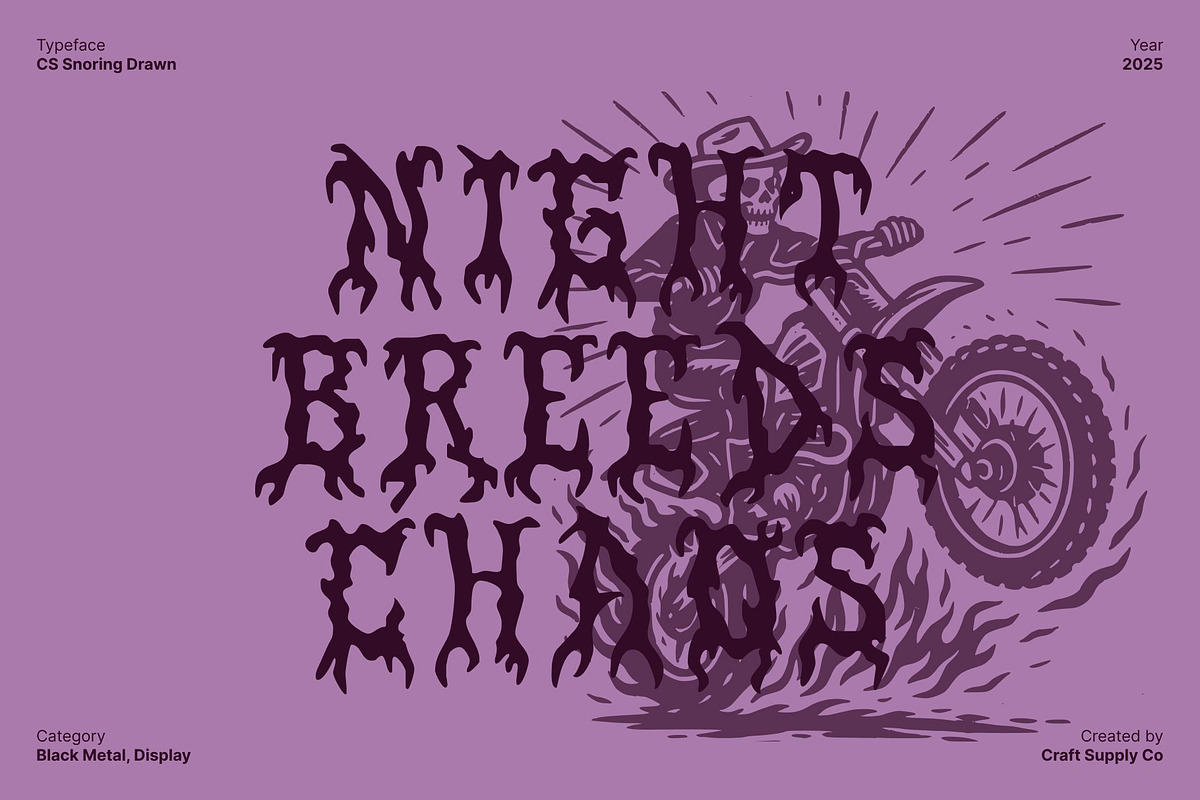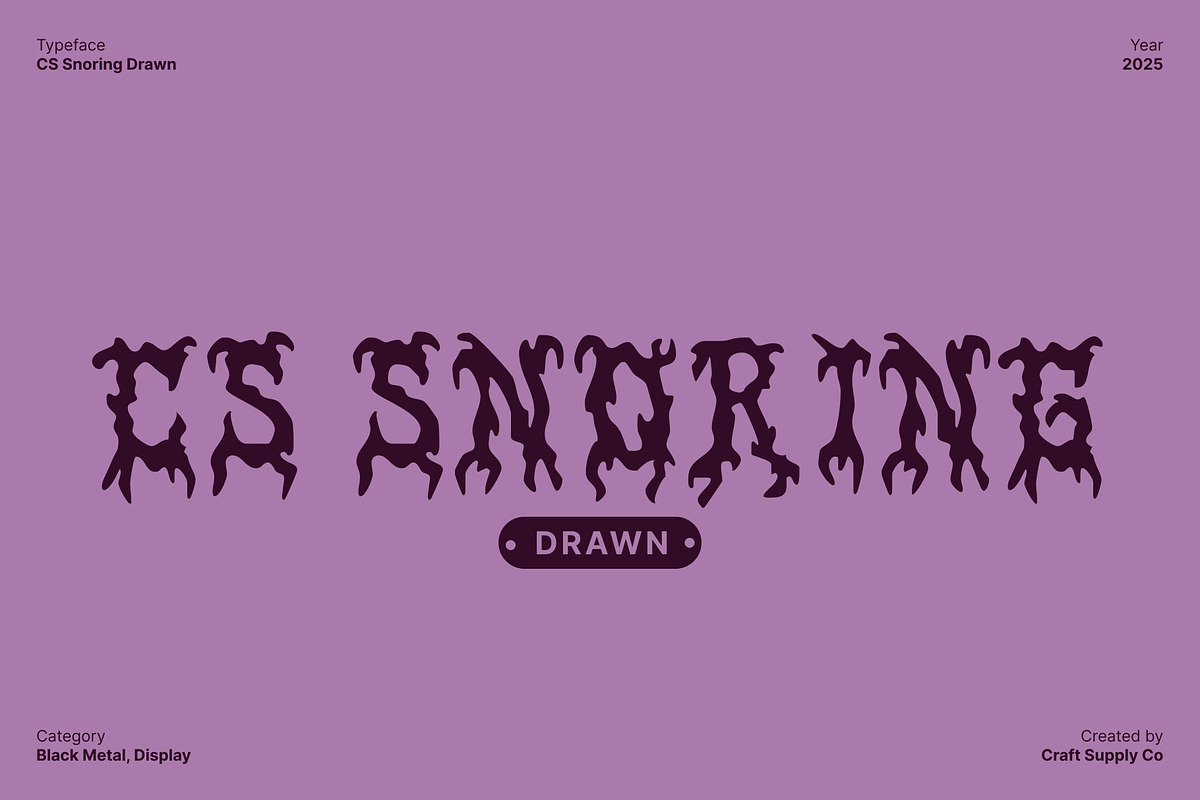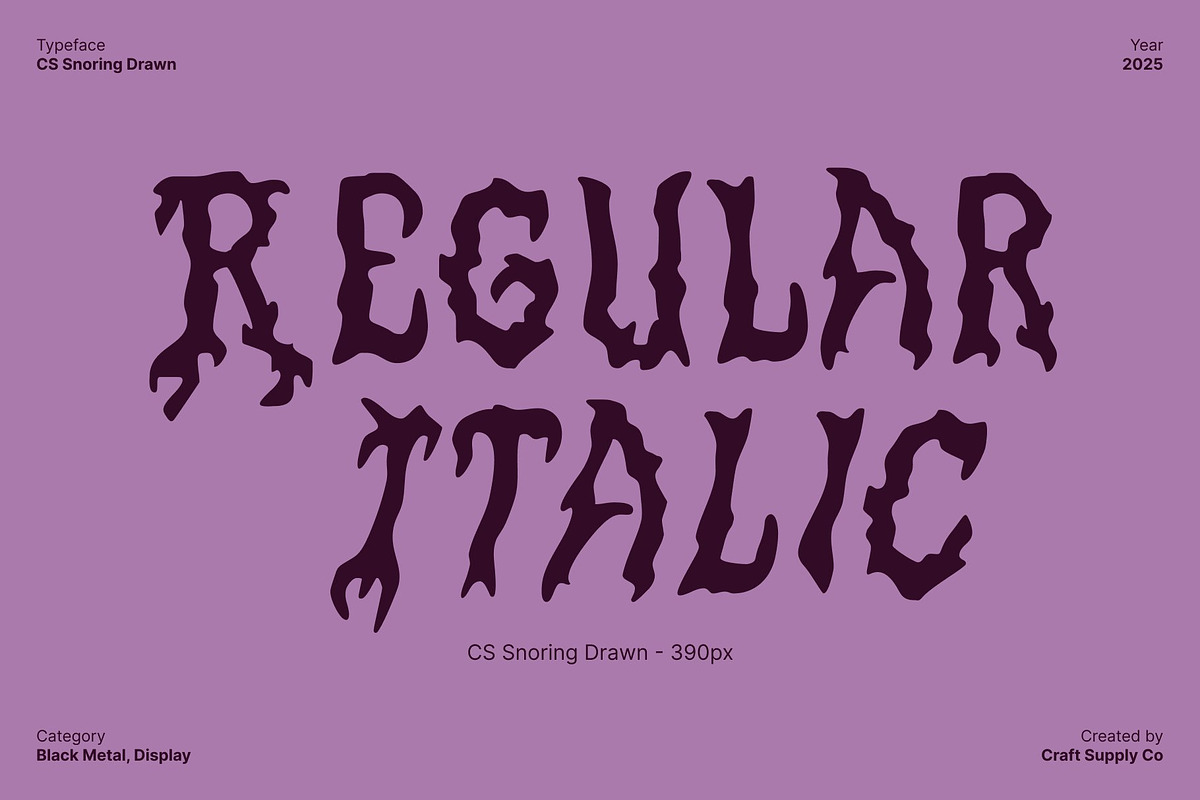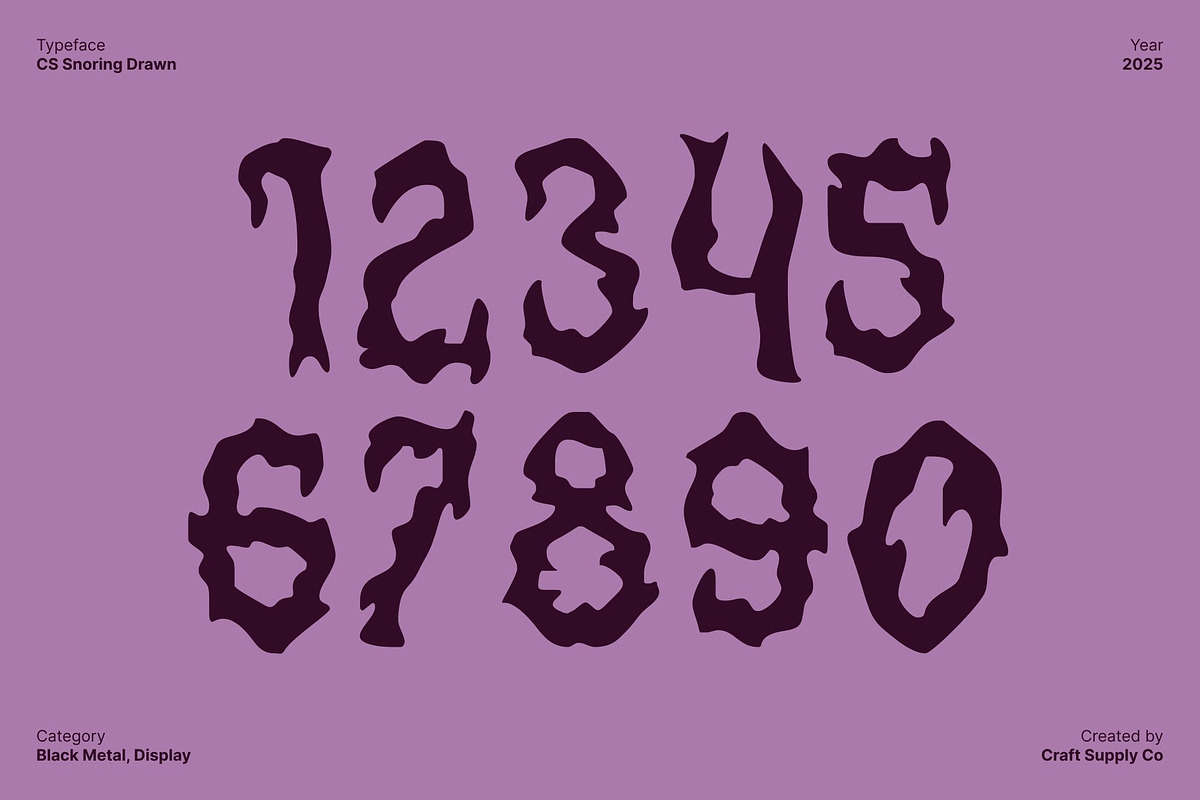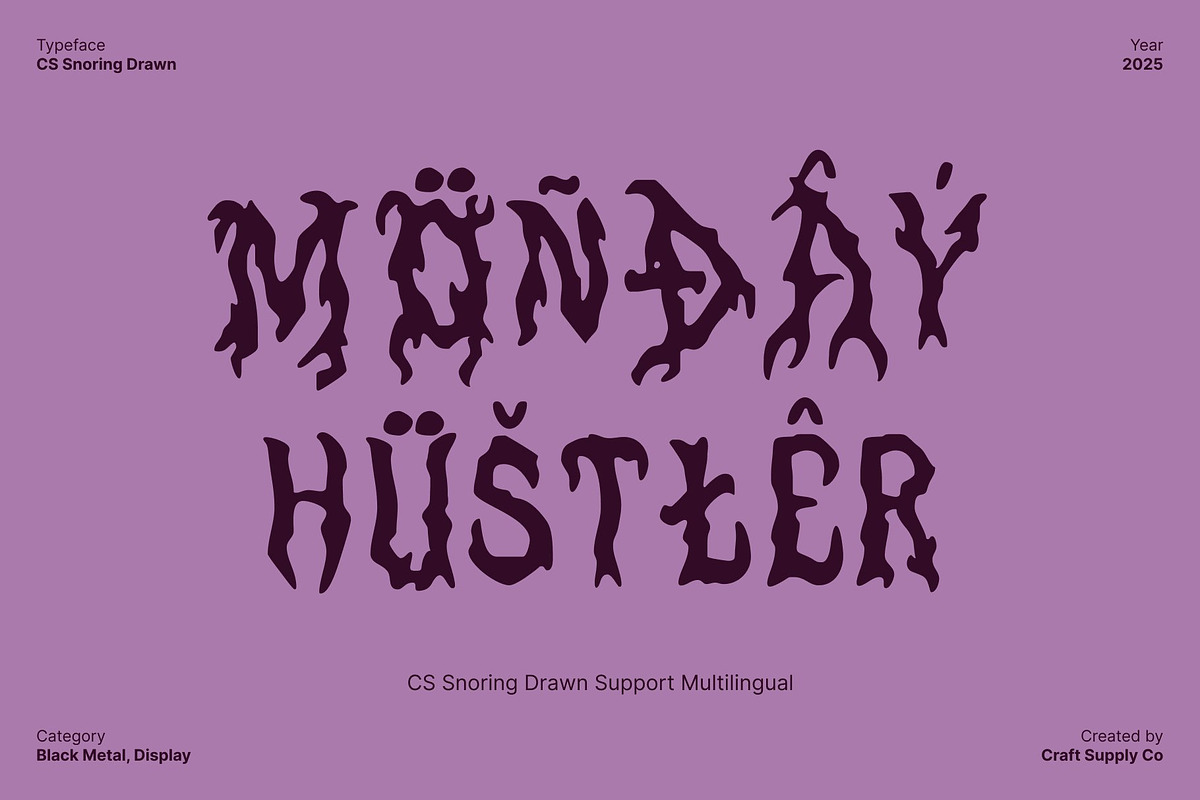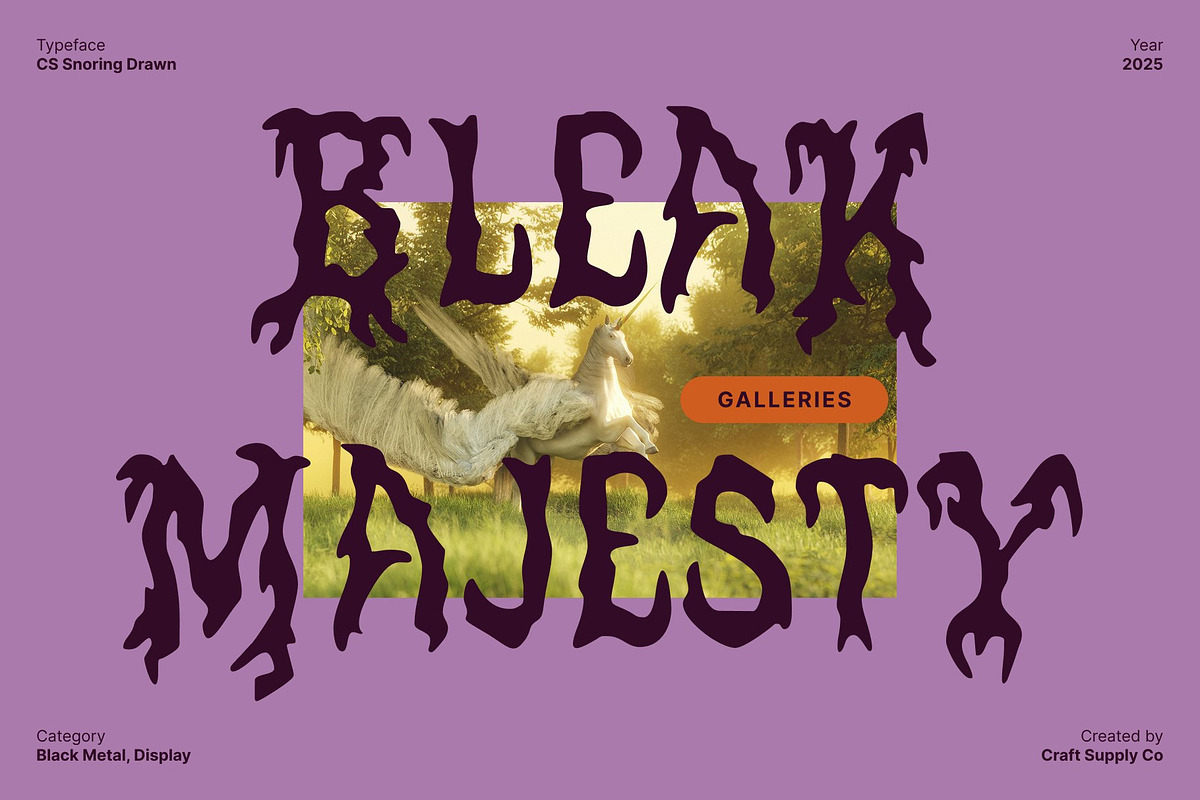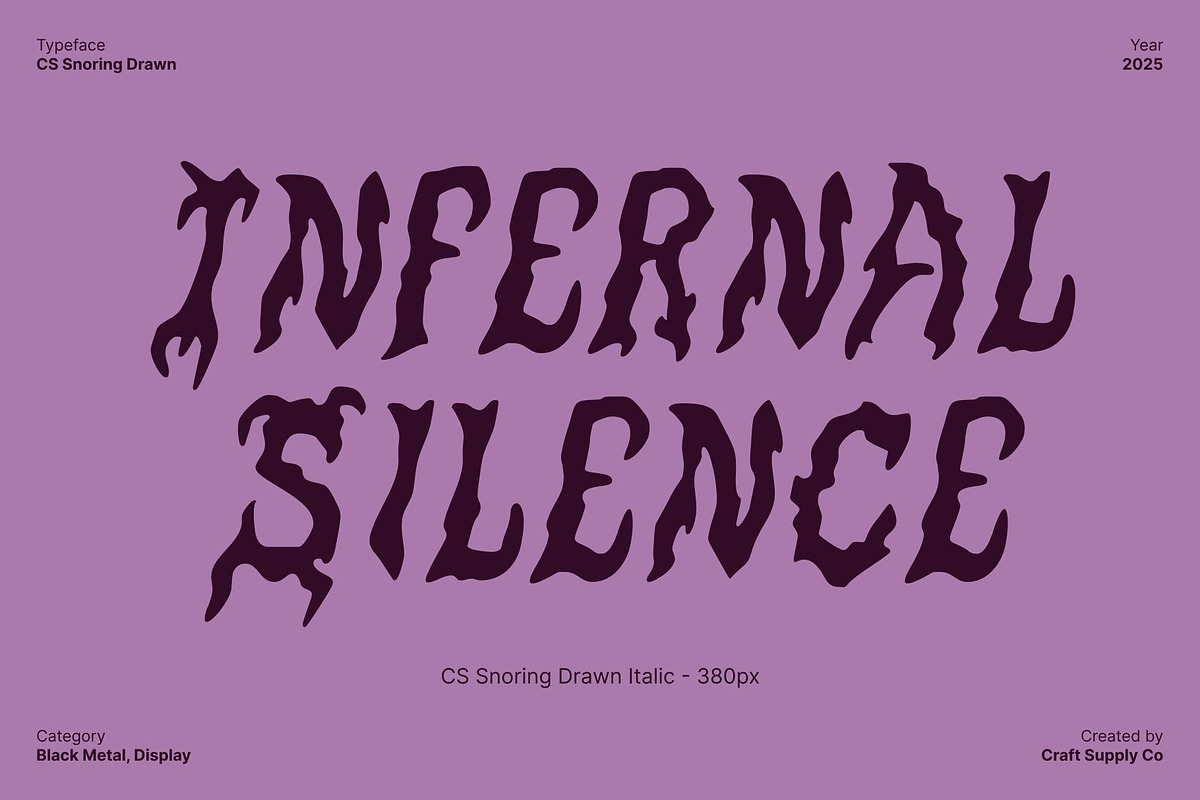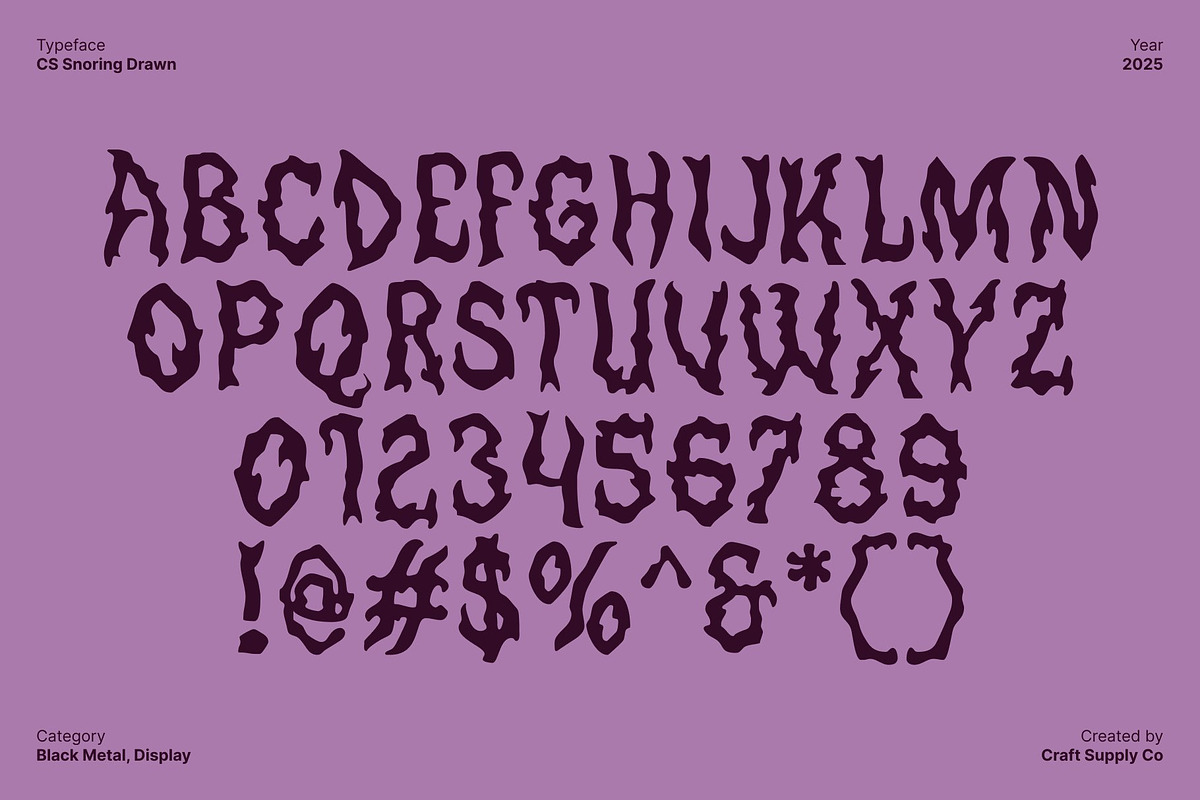
CS Snoring Drawn
CS Snoring Drawn – Black Metal Font with Jagged Intensity and Hand-Drawn Texture
Aggressive Typeface with Dark, Chaotic Energy This is a raw and commanding black metal display font that embodies the ferocity and intensity of extreme music. Its jagged spikes, sharp edges, and chaotic strokes create a bold and unsettling visual presence. Designed for maximum impact, this font is perfect for projects that demand aggression, darkness, and visual dominance.
Hand-Drawn Texture for Unique Character Enhanced with a hand-drawn effect, gains additional depth, texture, and uniqueness. The rough, imperfect strokes give each letter an authentic, handcrafted feel, amplifying its raw and rebellious personality. This textured quality adds character and energy, making the font stand out in any display application.
Ideal for Band Logos, Posters, and Edgy Projects This font thrives in creative contexts that need to communicate intensity and attitude. It is perfect for heavy metal and black metal band logos, album covers, gig posters, merchandise, and other edgy design projects. Its chaotic forms and textured detailing make it a go-to choice for designers aiming to evoke the extreme music aesthetic.
A Fierce Typeface with Dark, Distinctive Style By combining aggressive black metal shapes with hand-drawn texture, this font delivers a typeface that is both visually intense and uniquely expressive. It offers designers the tools to craft projects that feel raw, powerful, and unmistakably bold, capturing the spirit and energy of extreme music with every letter.